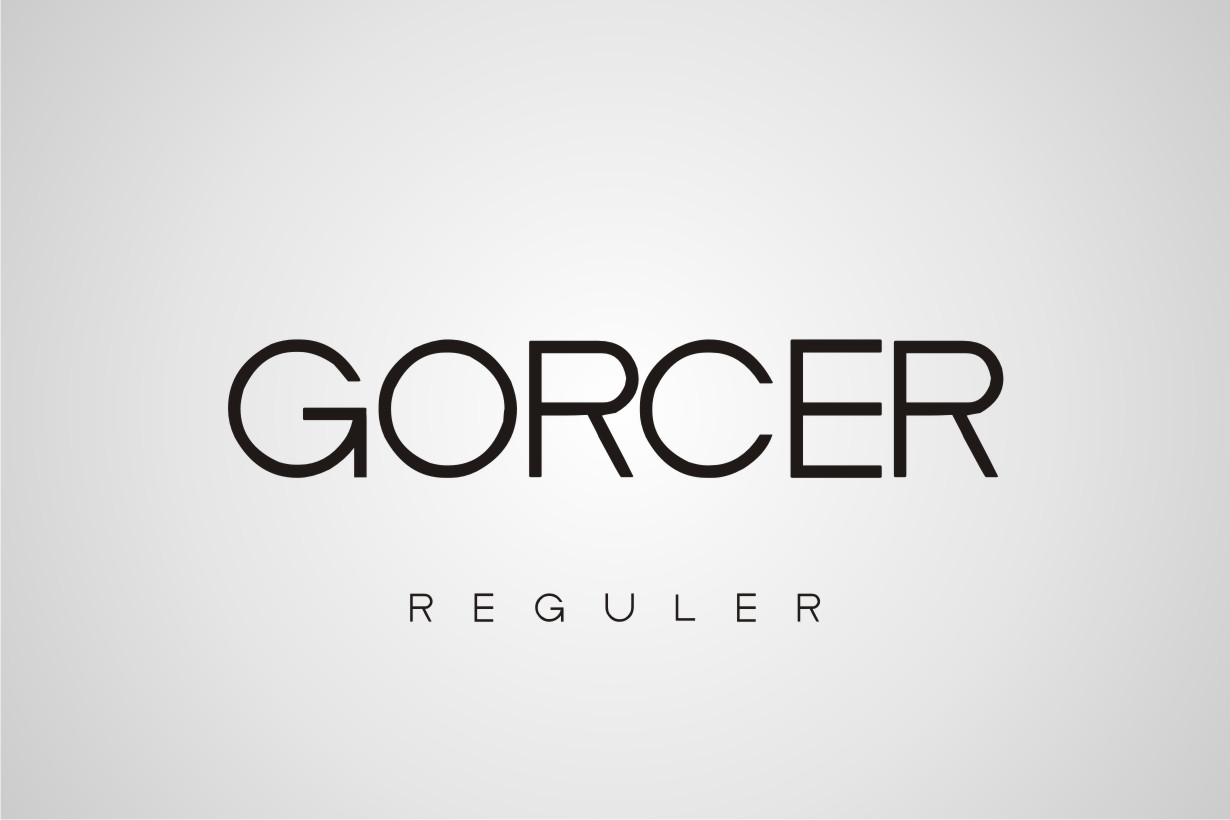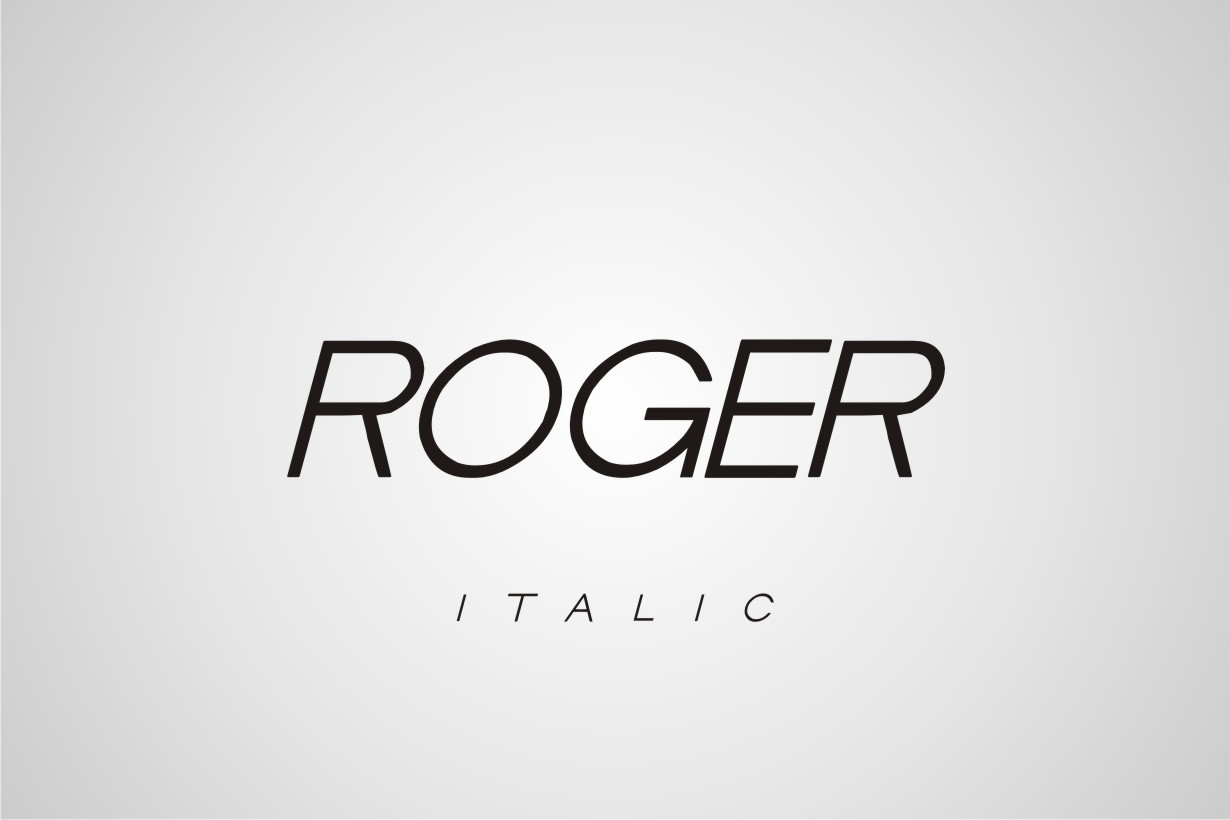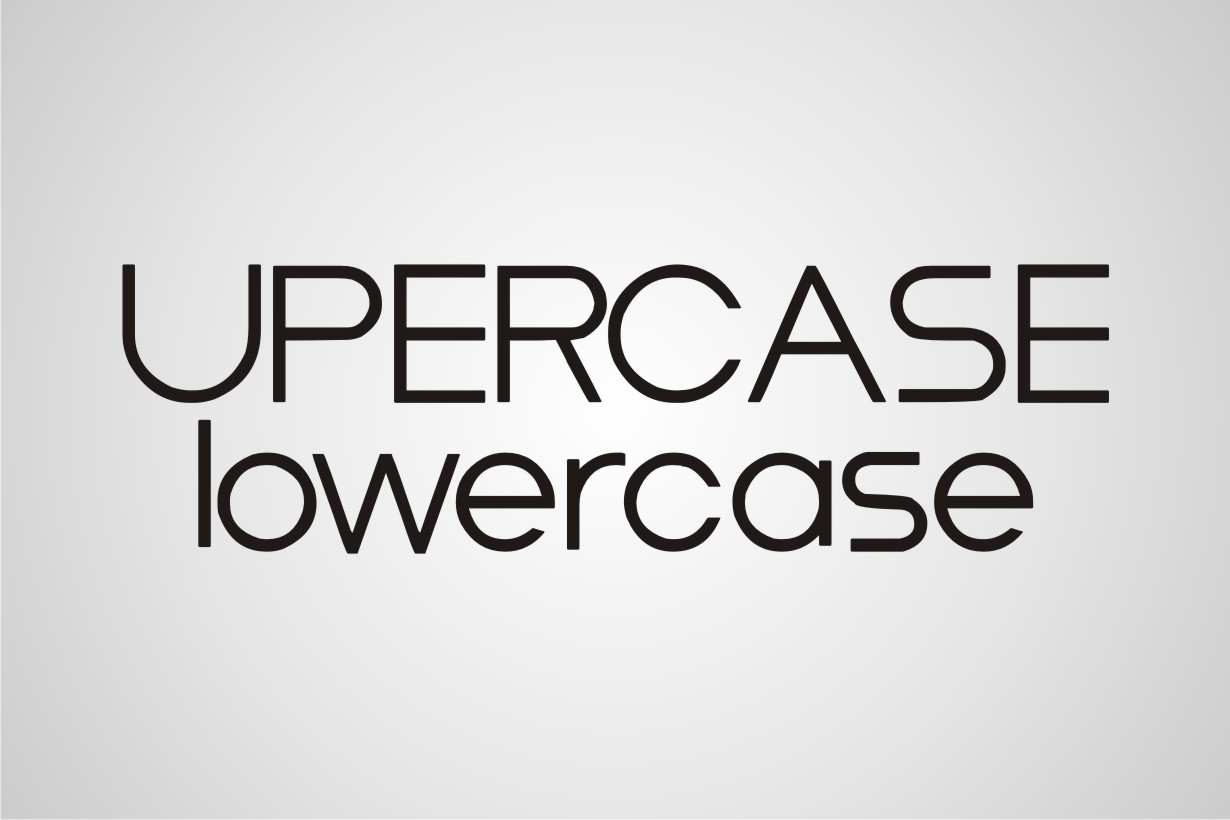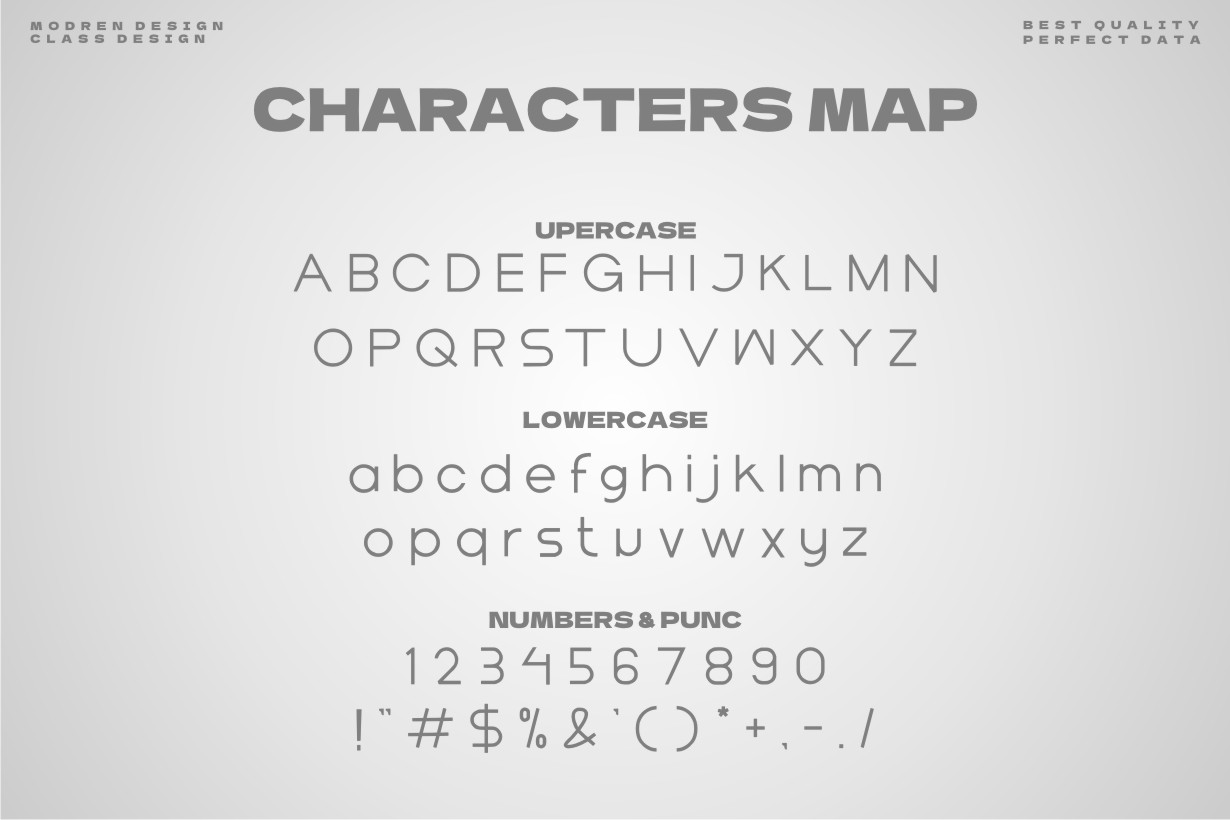
Hellowon Font
Hellowon Sans Serif Font
This is a minimal and neat sans serif font. It can easily be matched to an incredibly large set of projects, so add it to your creative ideas and notice how it makes them stand out!